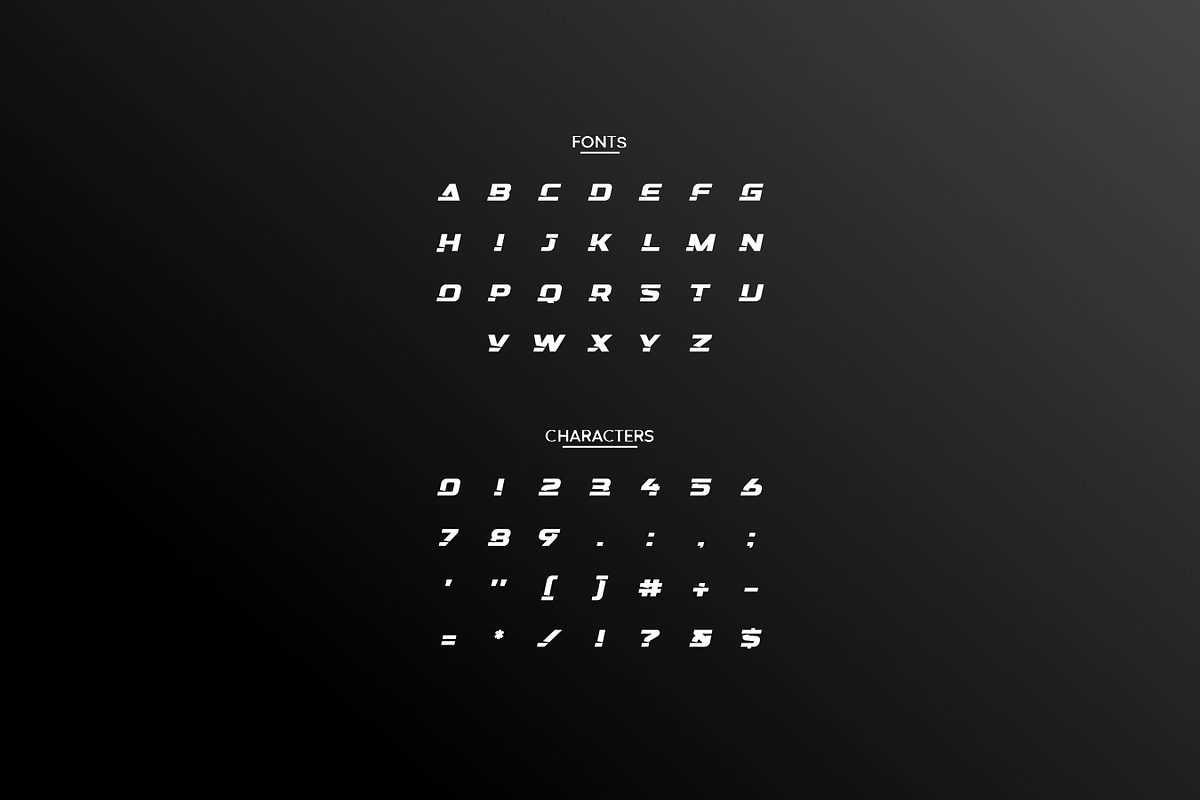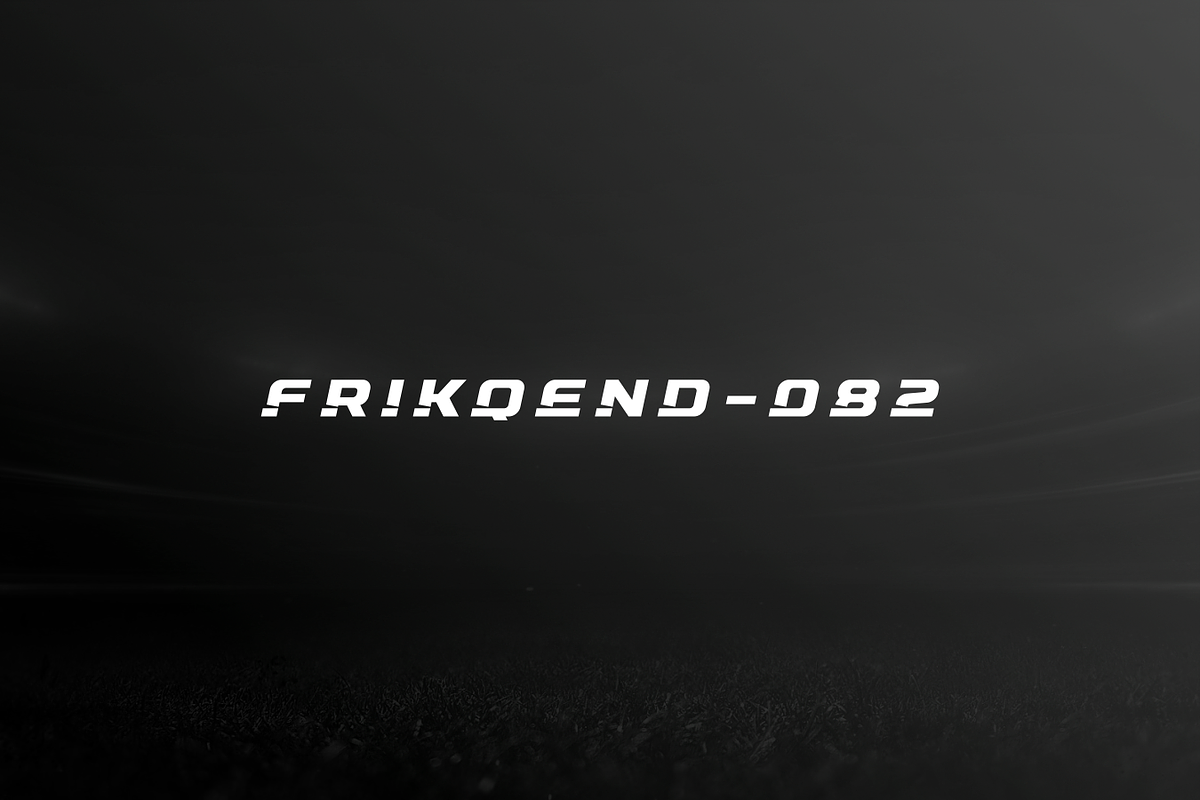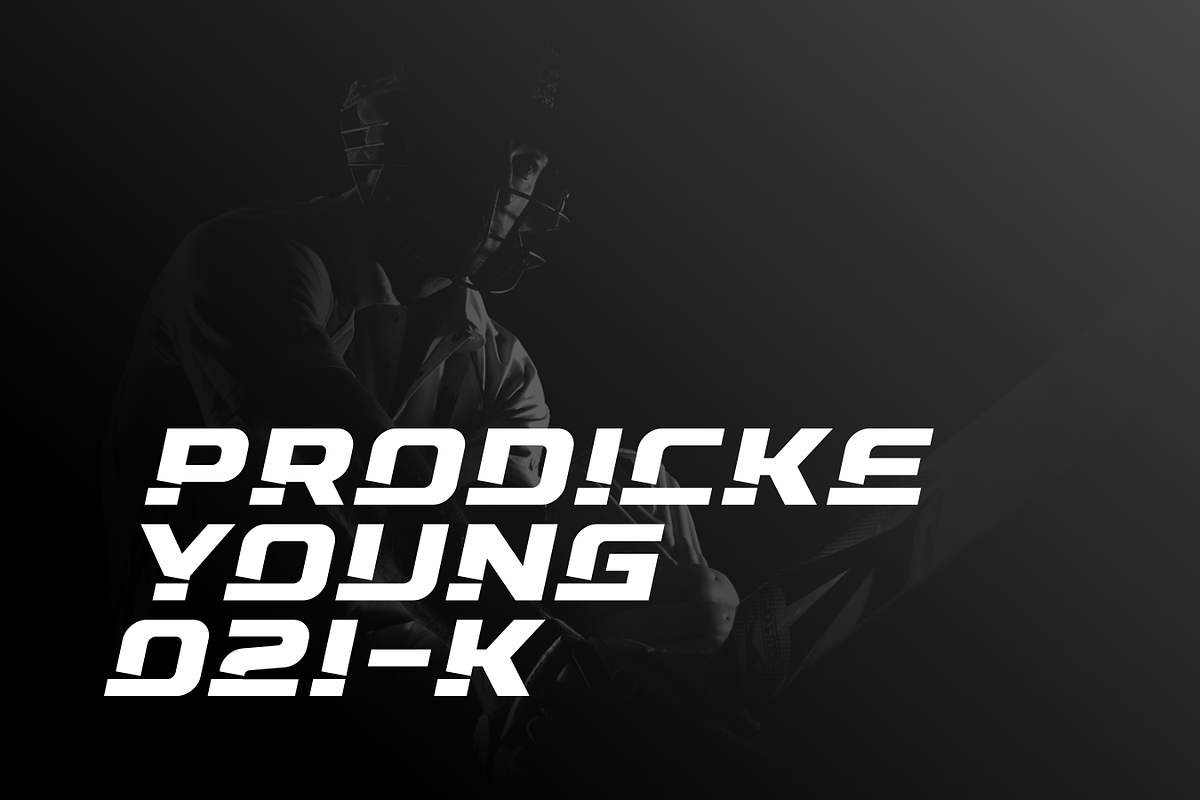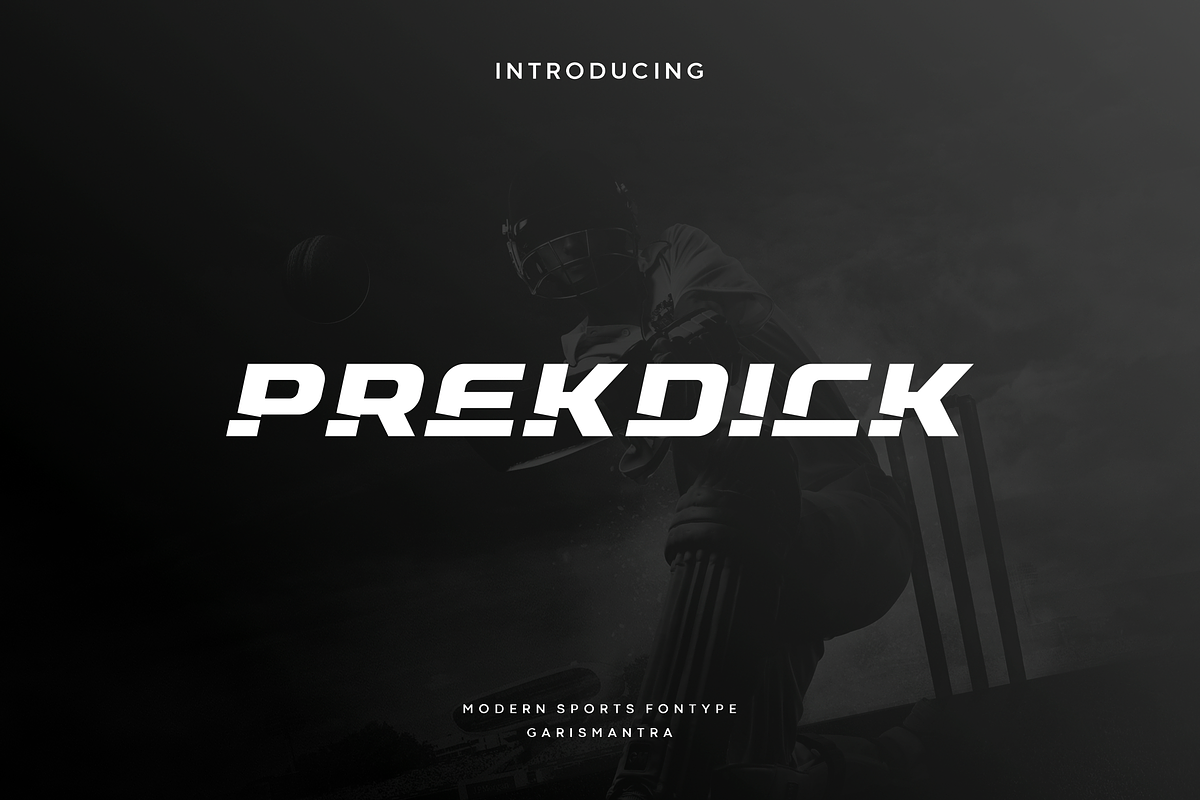
Prekdick
Prekdick is a sports font with an italic style, a modern look with a dynamic slant. Ideal for fast sports titles, logos, running, cycling, automotive and other modern dynamic monograms or text. Prekdick brings the feel of being cut into at certain angles, creating an effect of power and speed. Designed as a fast and dynamic font, but with a slightly different font design, don't doubt this font and grab it right away for your design.